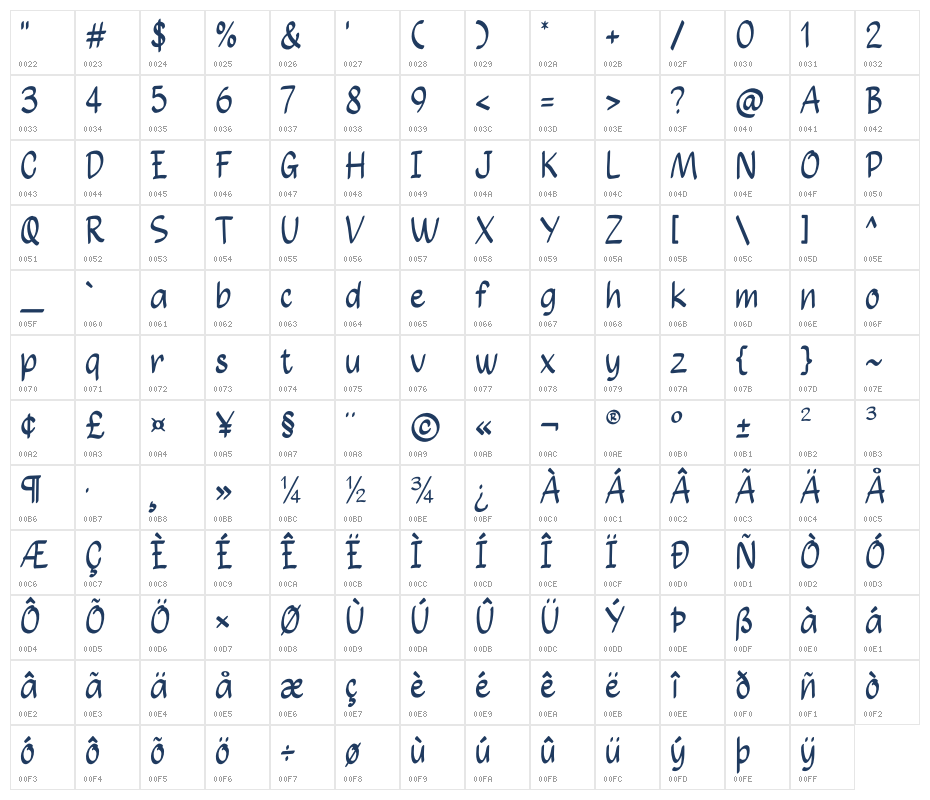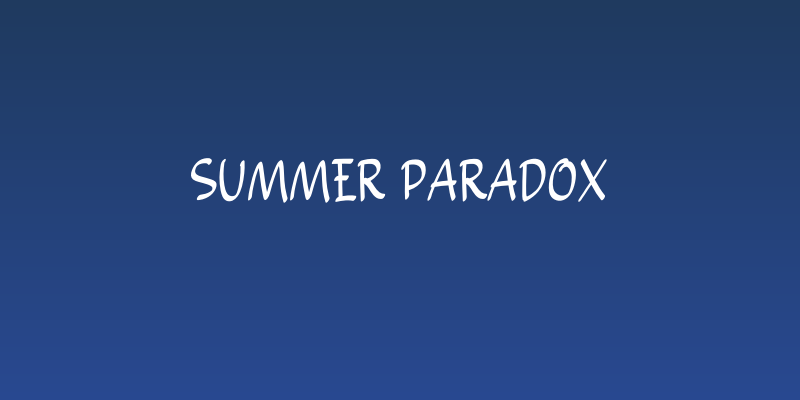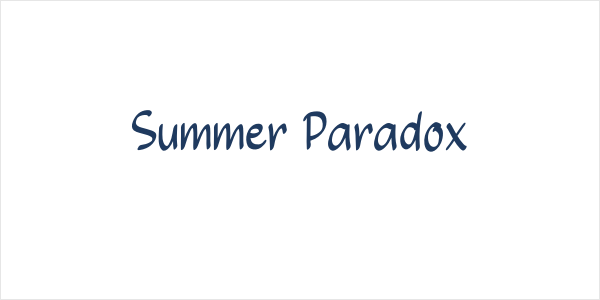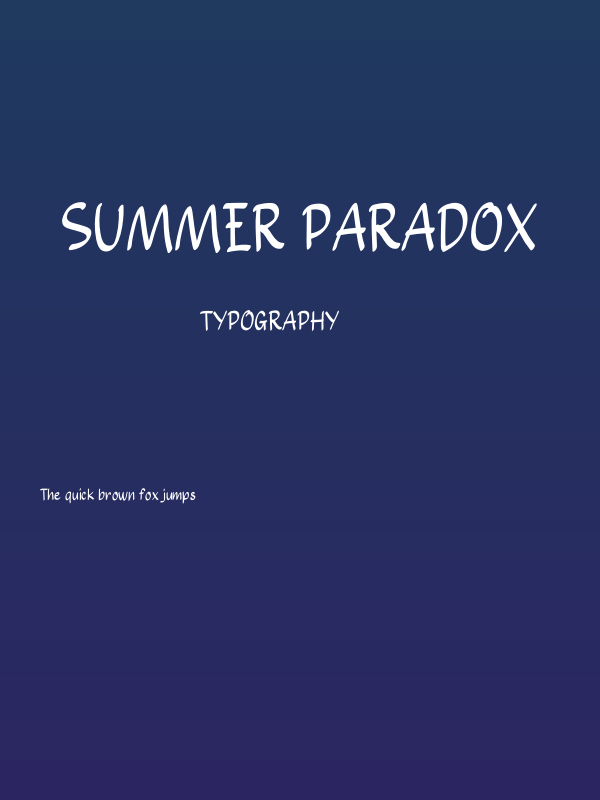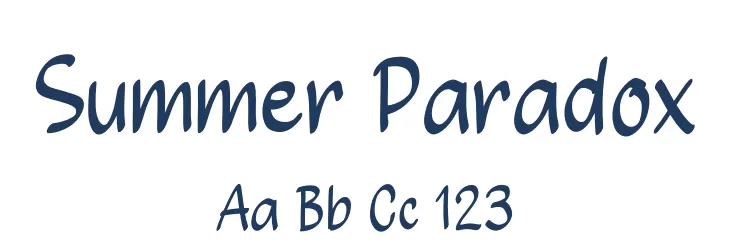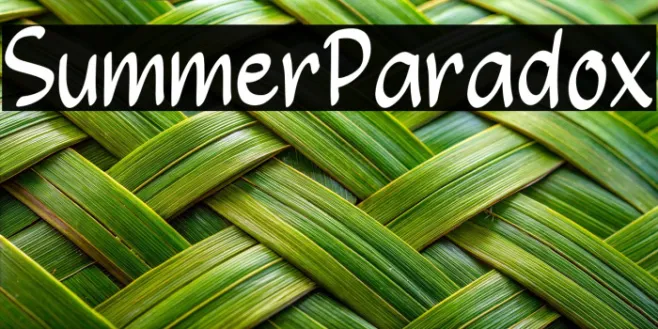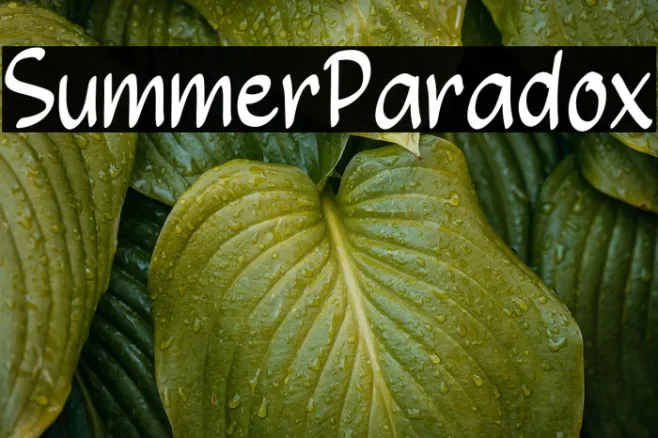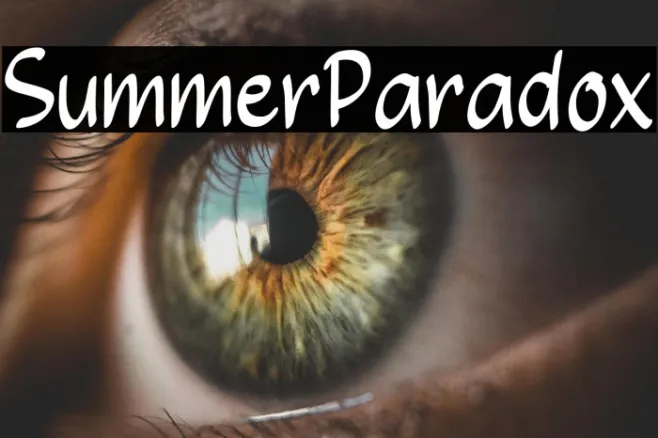
Summer Paradox Font
Summer Paradox Description
A casual, handwritten script font with a playful and informal style, featuring slightly irregular strokes and a friendly appearance.